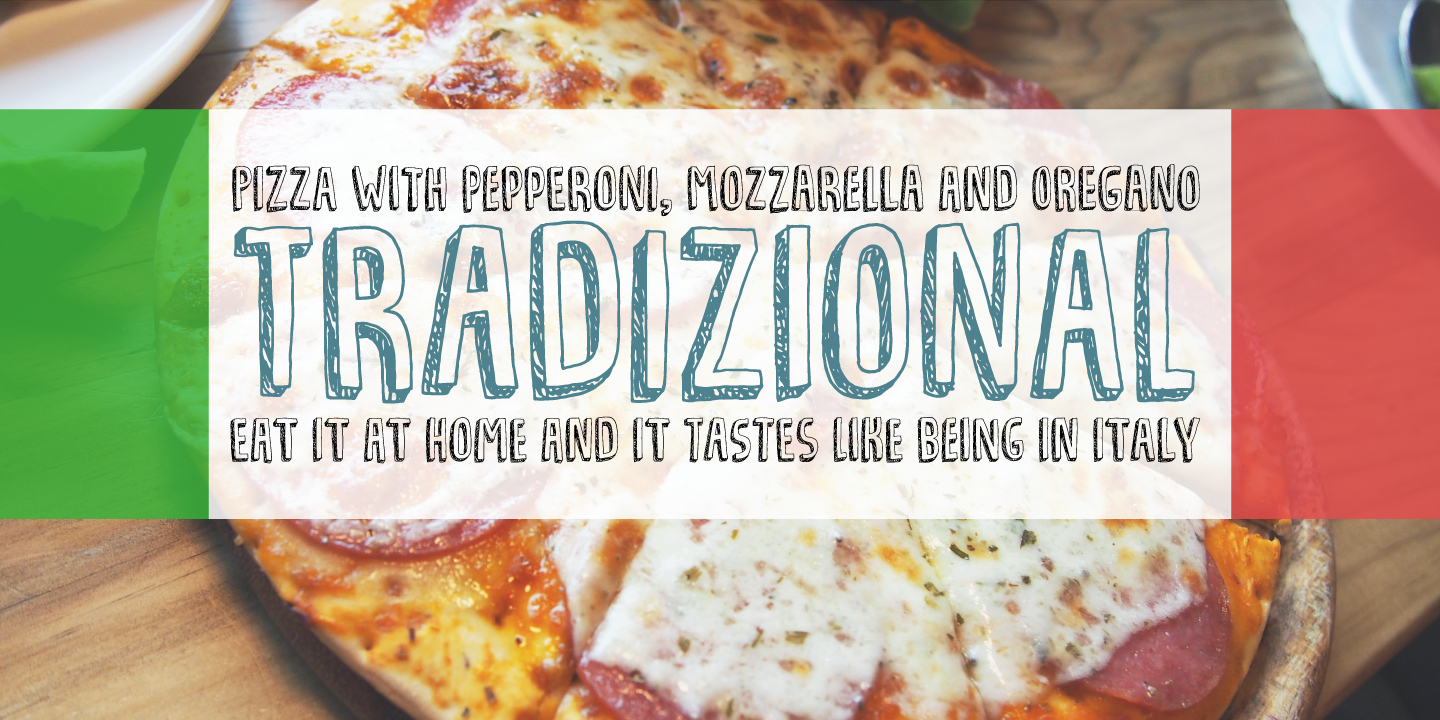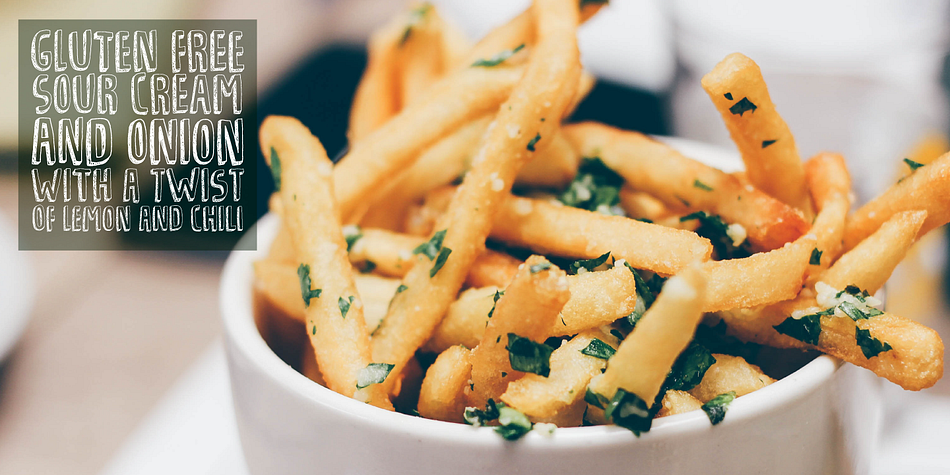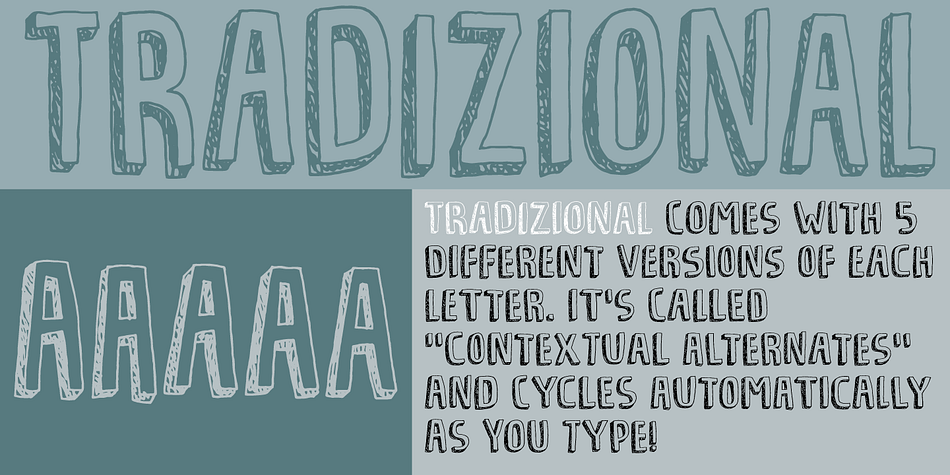
Tradizional is a hand display font published by Pizzadude.dk.
Say hi to my happy shadowed font. It’s handmade from the heart and is very playful in a very authentic way. The good feeling Tradizional gives the viewer, definitely comes from the 5 different versions of each letter. It makes the text look so realistic, that people forget that they are actually looking at a font!
Full of international characters, in order for some international fun!